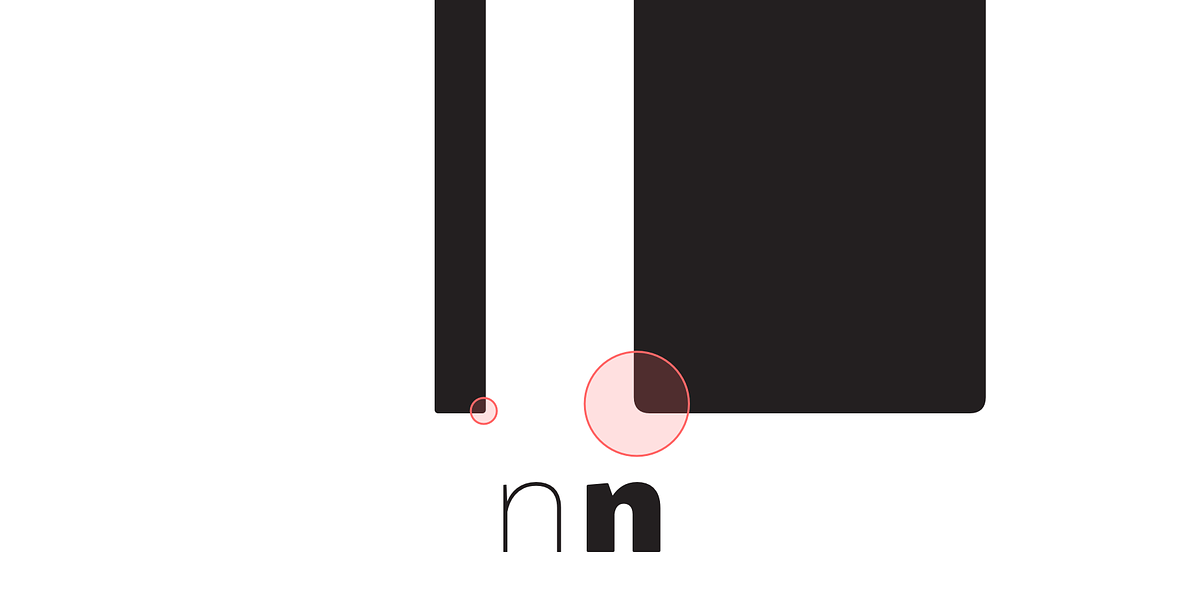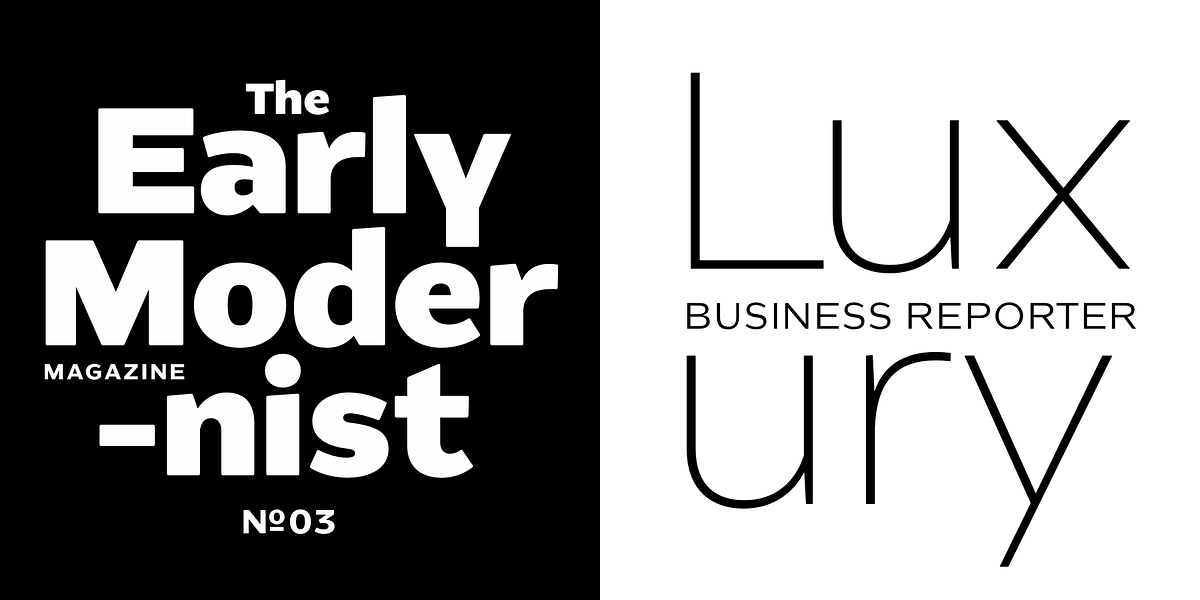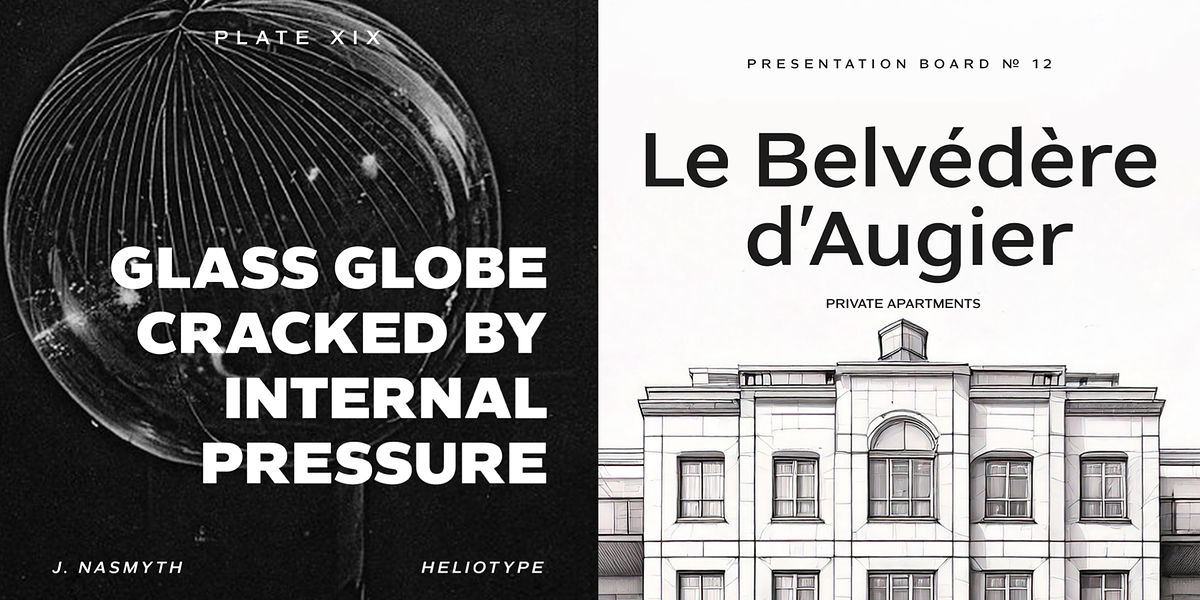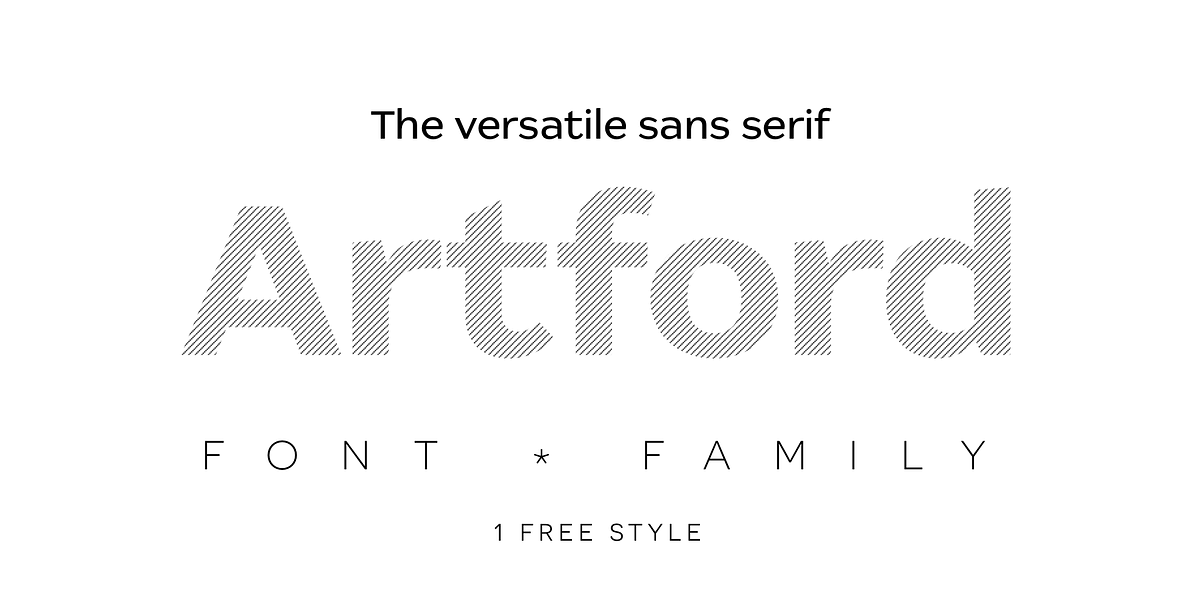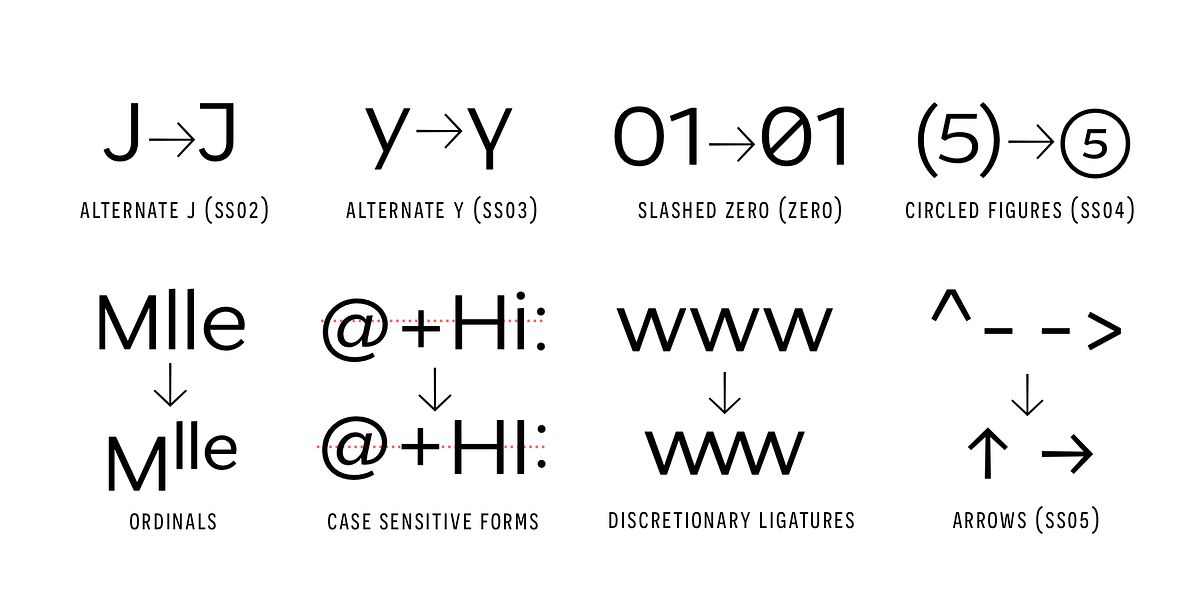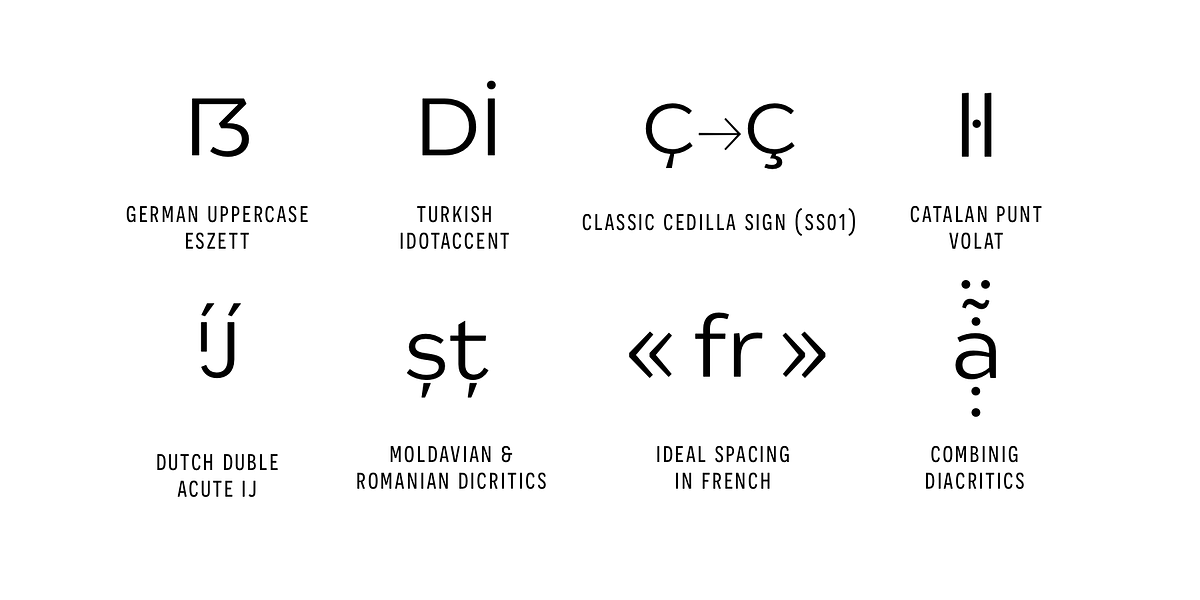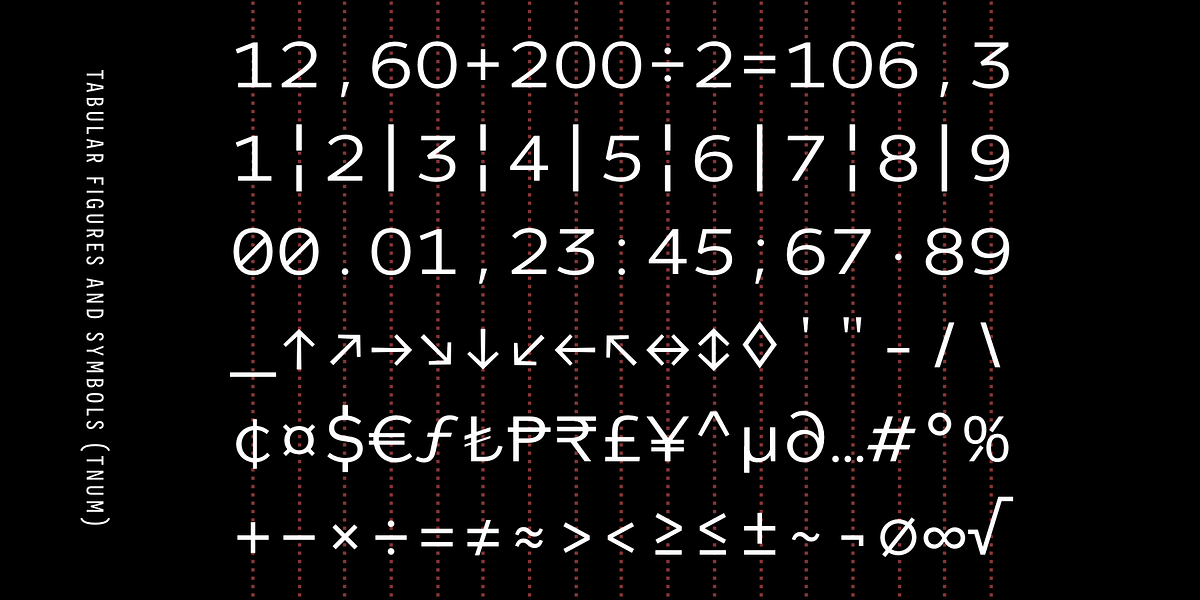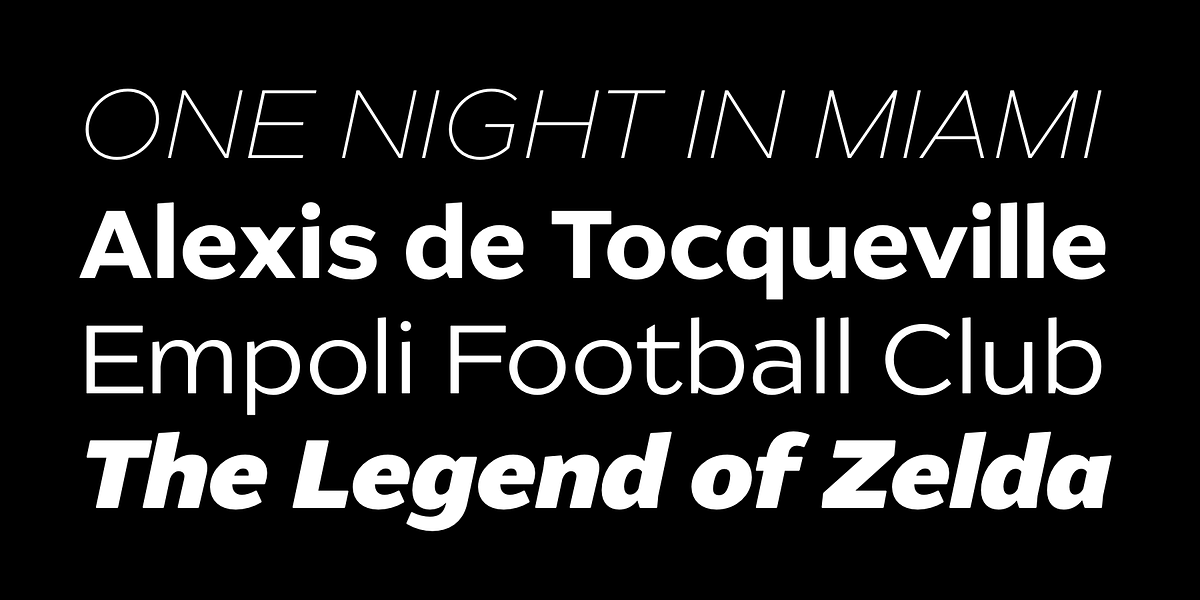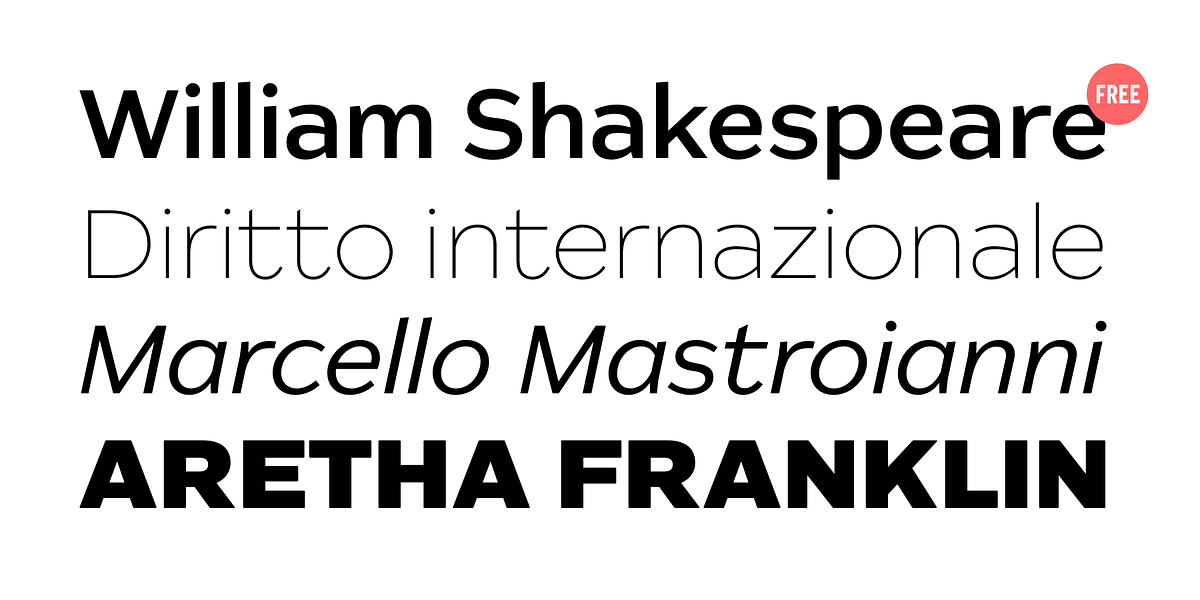
Artford
Artford is a user-friendly sans serif font designed for versatility. Its slightly wider design and high x-height make it ideal for both impactful headlines and small typesetting. With a touch of North American grotesk style, Artford features subtle thickness contrasts, creating generous counter shapes even in its bolder weights. Its extensive character set and OpenType features will meet all your creative typesetting needs.